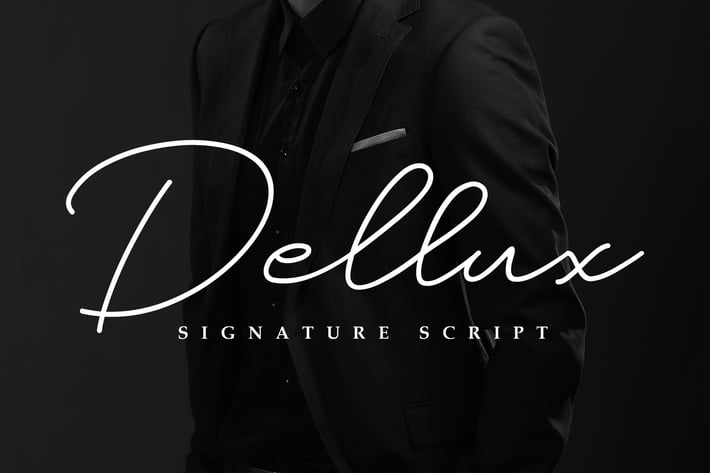
Dellux - Modern Script Font
Dellux is elegant signature. Perfect for any signature purpose, watermark photography, business, and many other .
- opentype features (swash, alternate, ligature, and basic latin multilingual support)